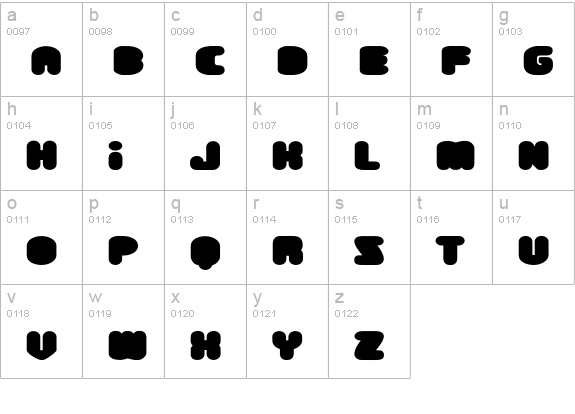
Fluff Font Details
Introducing Fluff font, a whimsical and playful typeface that will add a touch of charm to your designs! With its rounded edges and soft appearance, Fluff font is perfect for creating eye-catching headlines, greeting cards, invitations, and more. This delightful font is sure to bring a sense of warmth and friendliness to any project. And the best part? Fluff font is completely free to download at FontsMarket.com! Simply head over to the website and start using this adorable font in your designs today. Don't miss out on the opportunity to add a touch of sweetness to your projects with Fluff font. Download it now and let your creativity soar!